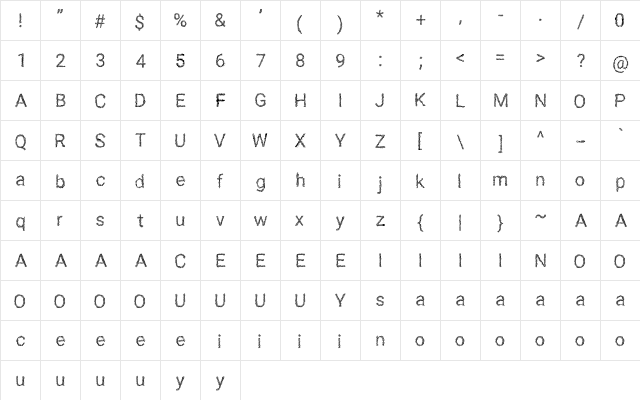
SPAGHETTI-SANS Regular Font Preview
SPAGHETTI-SANS Regular
SPAGHETTI-SANS Regular Font Details
| Designer | Thomas Pavitte |
Design Context for SPAGHETTI-SANS Typeface
SPAGHETTI-SANS takes a measured approach to typography — its balanced proportions and neutral character make it a reliable workhorse for both digital and print work.